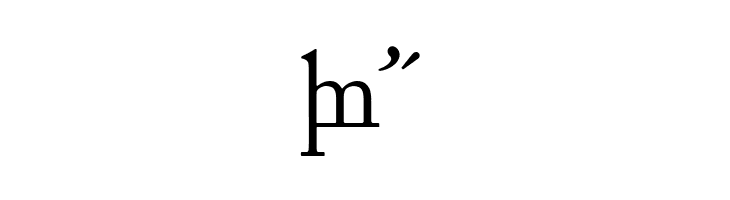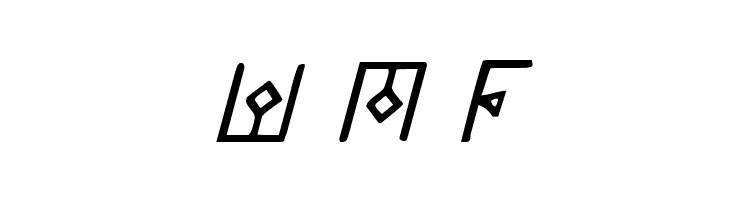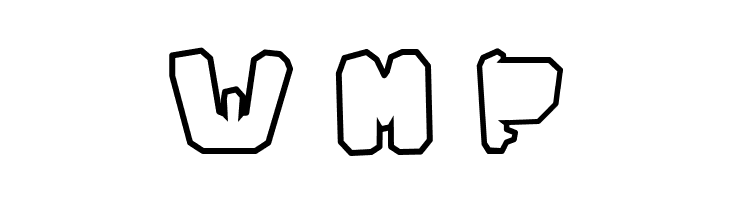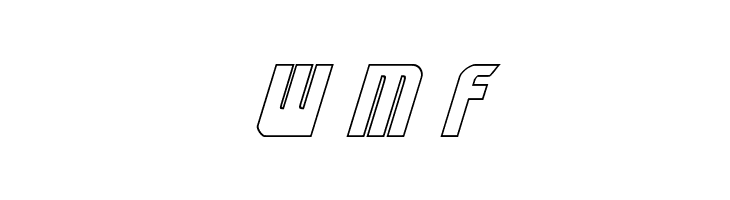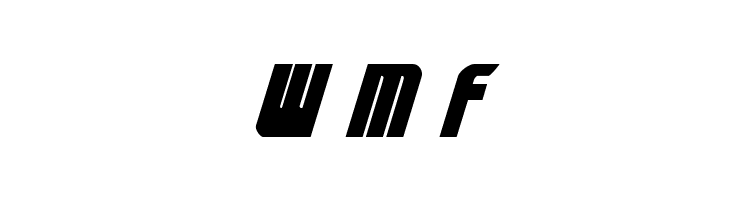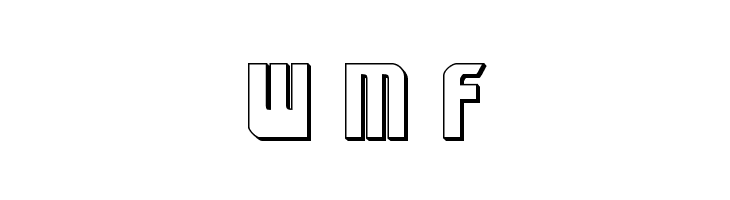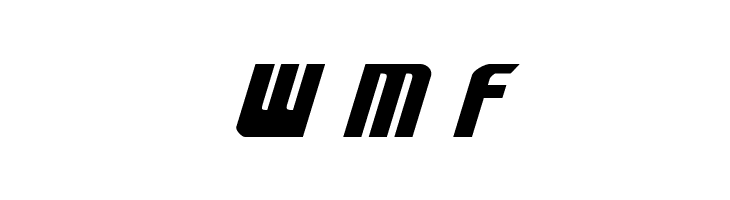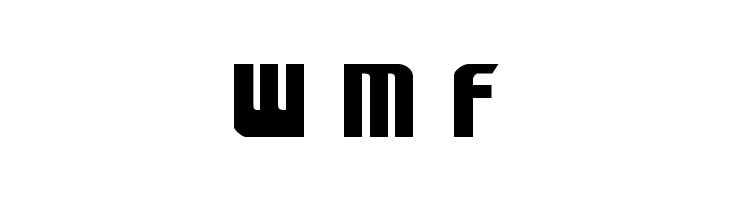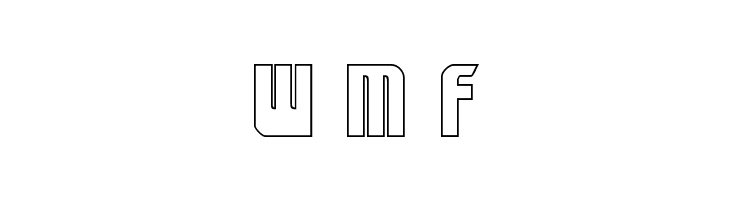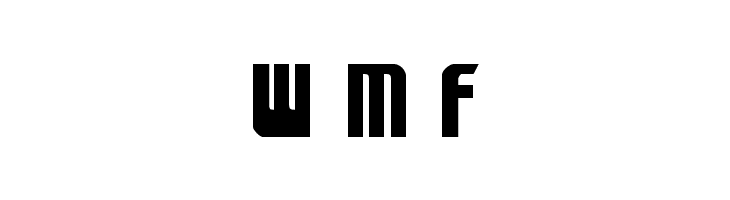
• EiDesKolumbus-Improvisations
Ornate, illustrative font with abstract, tribal-inspired glyphs in ovals.
• EierEggsOvo
Ornamental display font using illustrated eggs for each character.
• Eight Fifteen
A dynamic and fluid handwritten font with cursive letterforms.
• EighteenMayanMonths
A decorative font inspired by ancient Mayan glyphs, featuring intricate and bold designs.
• Eighties FREE
A bold, energetic script font with a dynamic 1980s flair.
• EinsteinsWorlds
A science-themed illustrative display font with Einstein and physics motifs.
• Ejaculator
A bold, geometric font with a three-dimensional outline and angular shapes.
• Ekoclean
A bold, dynamic handwritten font with a brush-like texture and artistic flair.
• Ekushey Mohua Normal
• El-Wonko
• ELANDE free
A bold, expressive script font with flowing cursive letterforms.
• Elanor Free Font
A bold, modern, and condensed sans-serif font with a geometric structure.
• ElbicCaslin
An ornate and decorative font with intricate flourishes and a mystical style.
• Eldebaran 3D Italic
A bold, 3D italic font with a futuristic and dynamic style.
• Eldebaran 3D Regular
A bold, geometric 3D font with strong outlines and a blocky appearance.
• Eldebaran Academy Italic
A bold, italicized font with geometric outlines and a futuristic style.
• Eldebaran Academy Regular
A bold, geometric font with a retro-modern style.
• Eldebaran Bold
A bold, geometric font with a futuristic and impactful design.
• Eldebaran Bold Italic
A bold, italicized font with sharp angles and a dynamic, forward-leaning style.
• Eldebaran Condensed
A bold, condensed font with a geometric and industrial style.